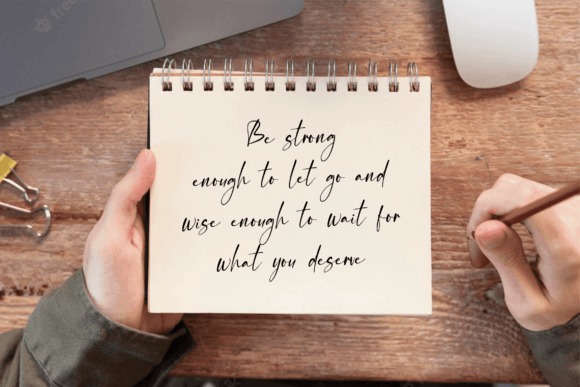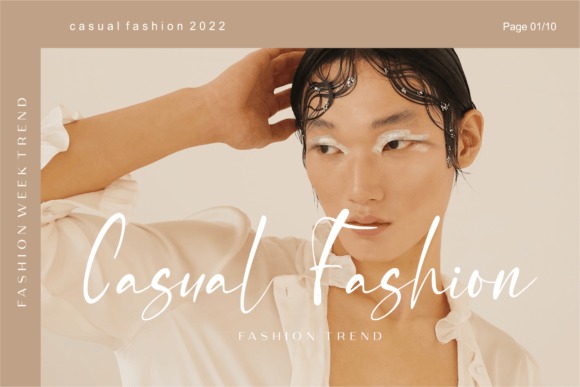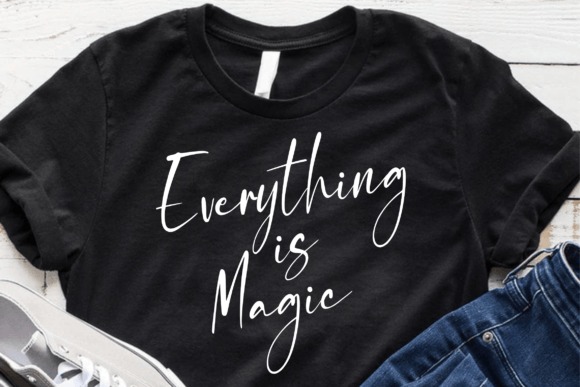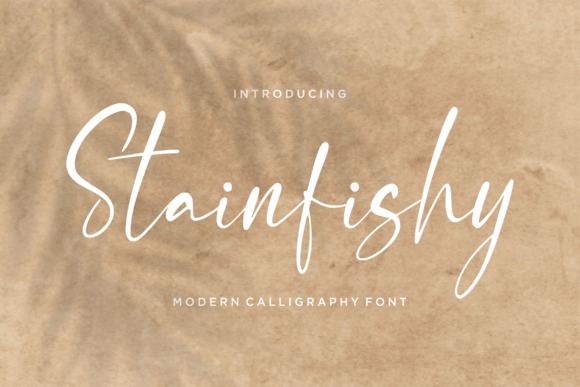
Stainfishy Font
Stainfishy Handwritten Font
This is a Modern Calligraphy Font. Stainfishy is perfect for product packaging, branding project, megazine, social media, wedding, or just used to express words above the background.